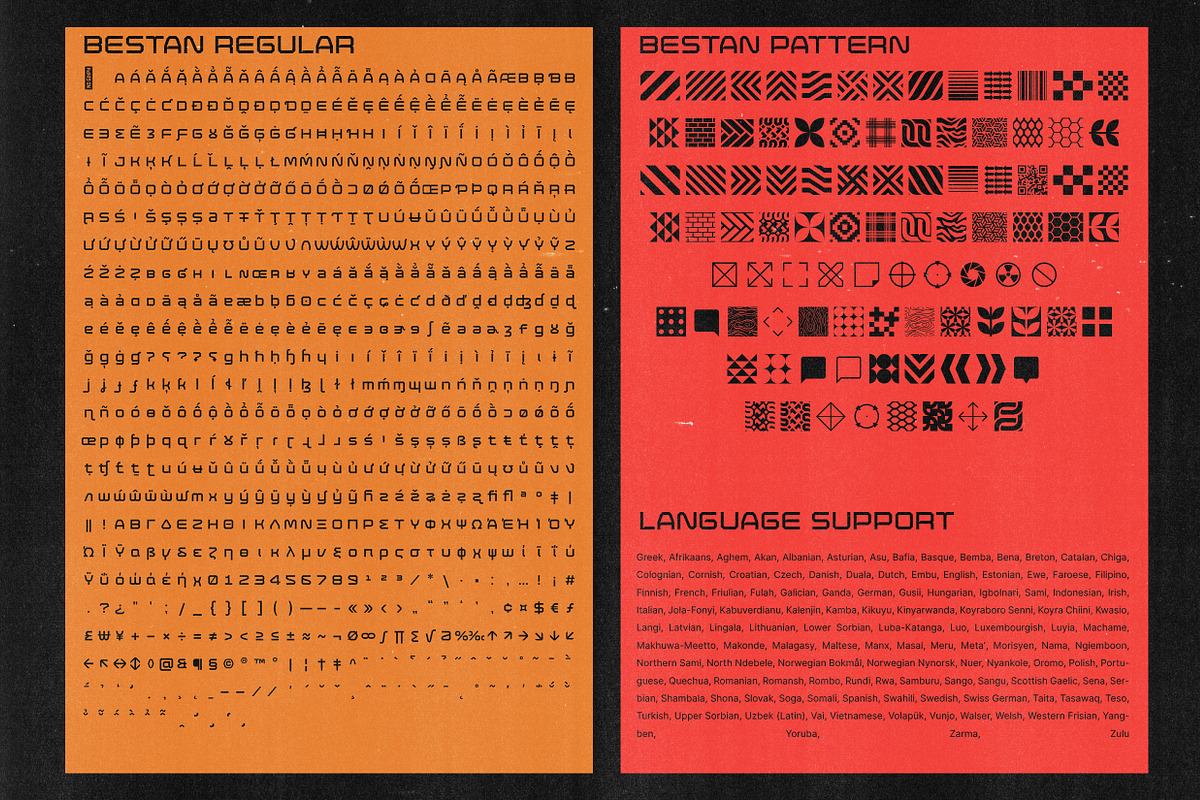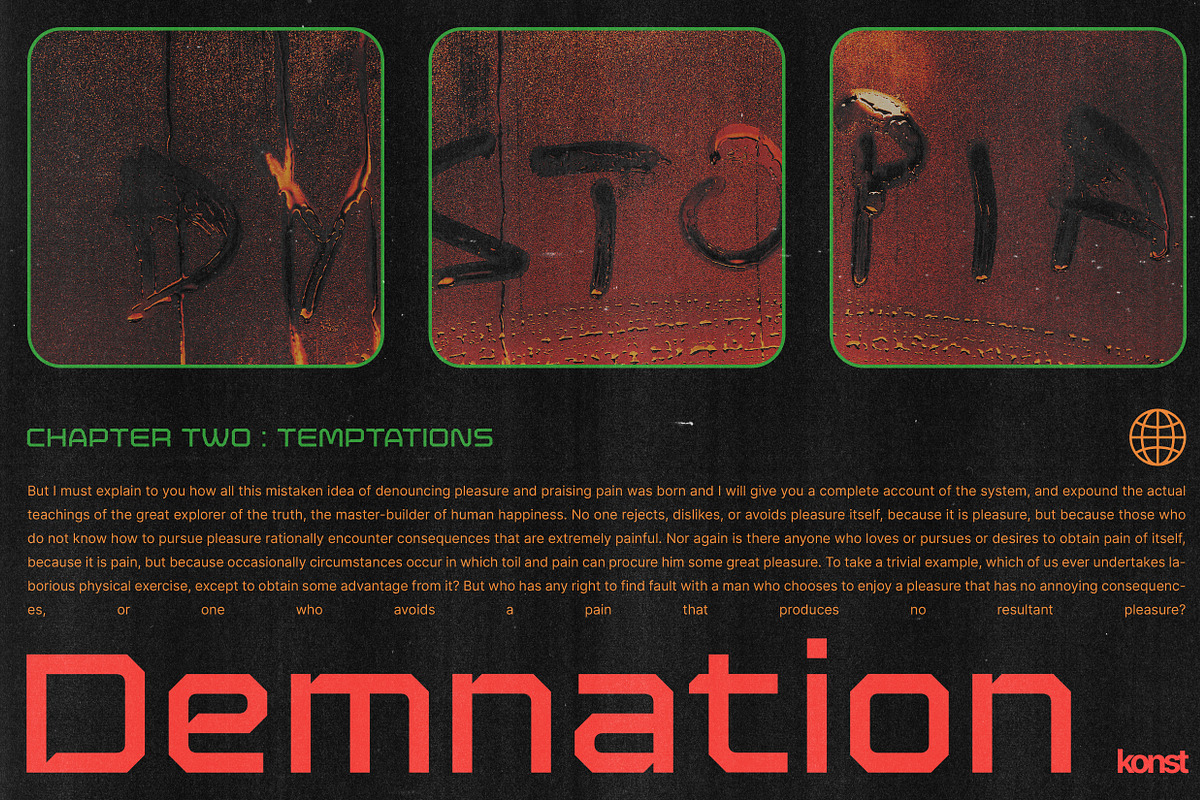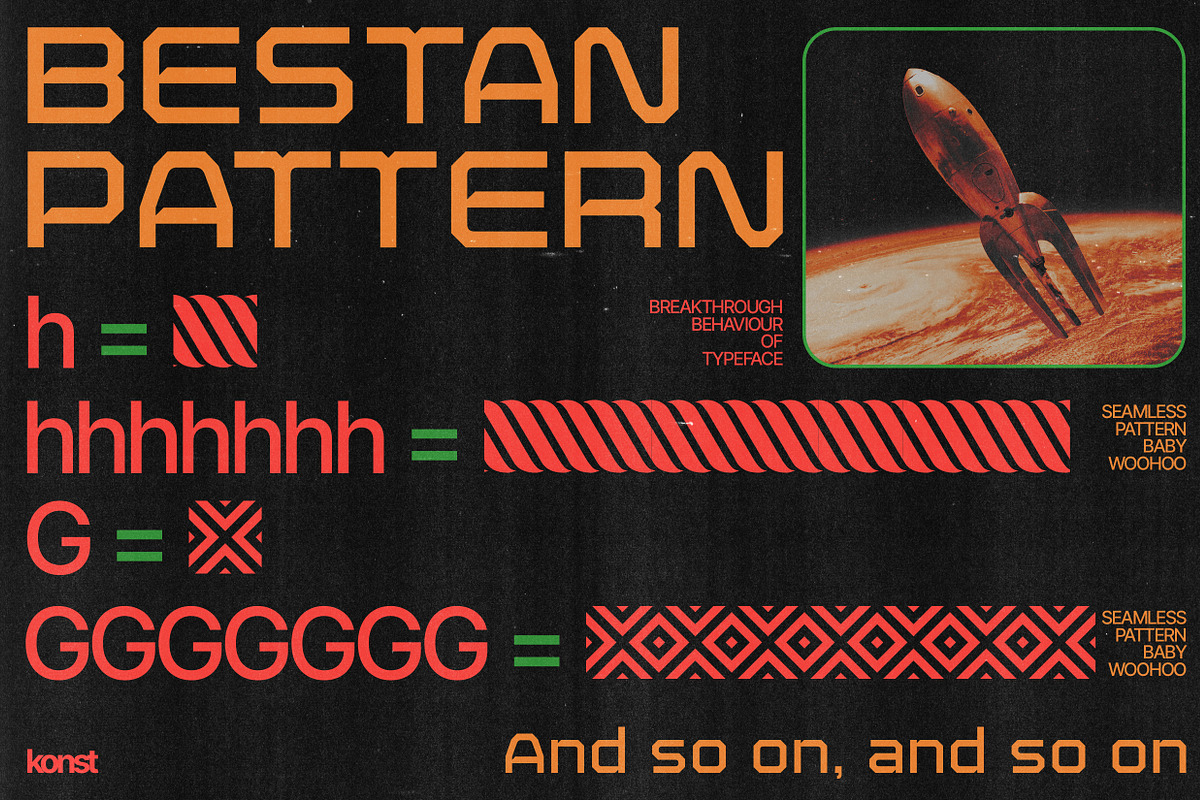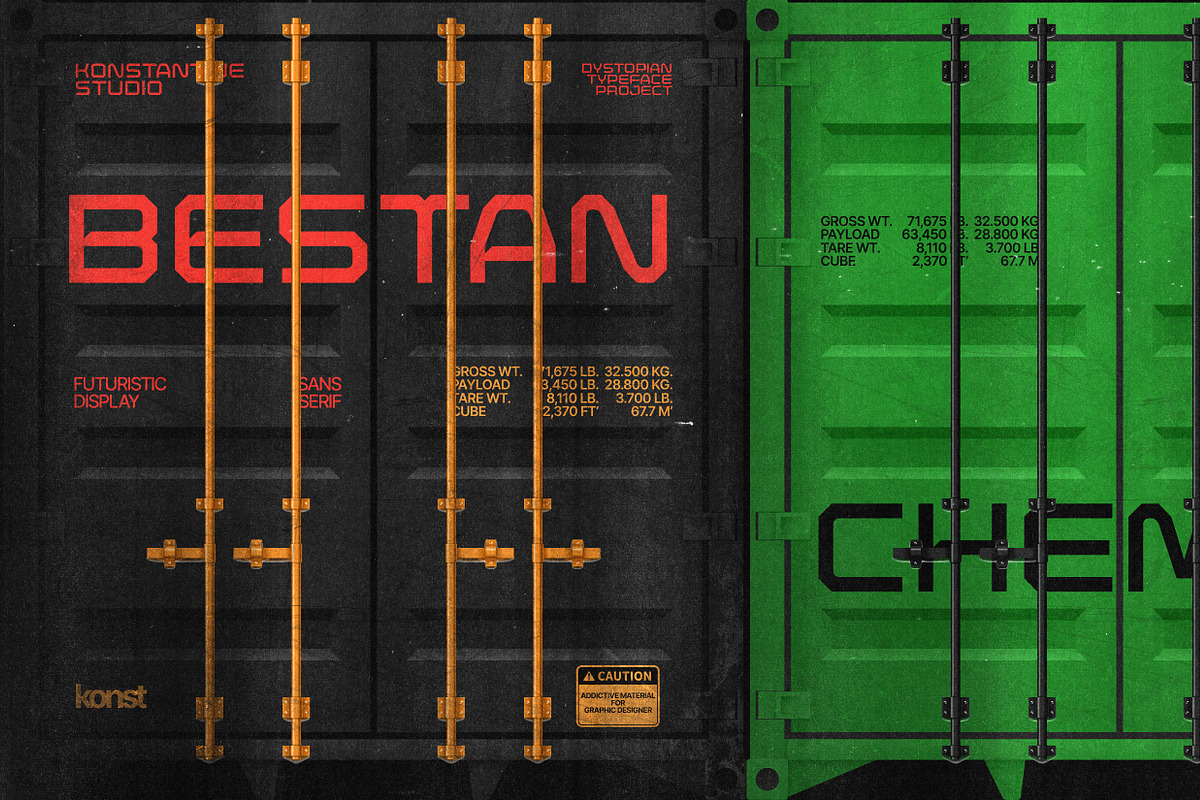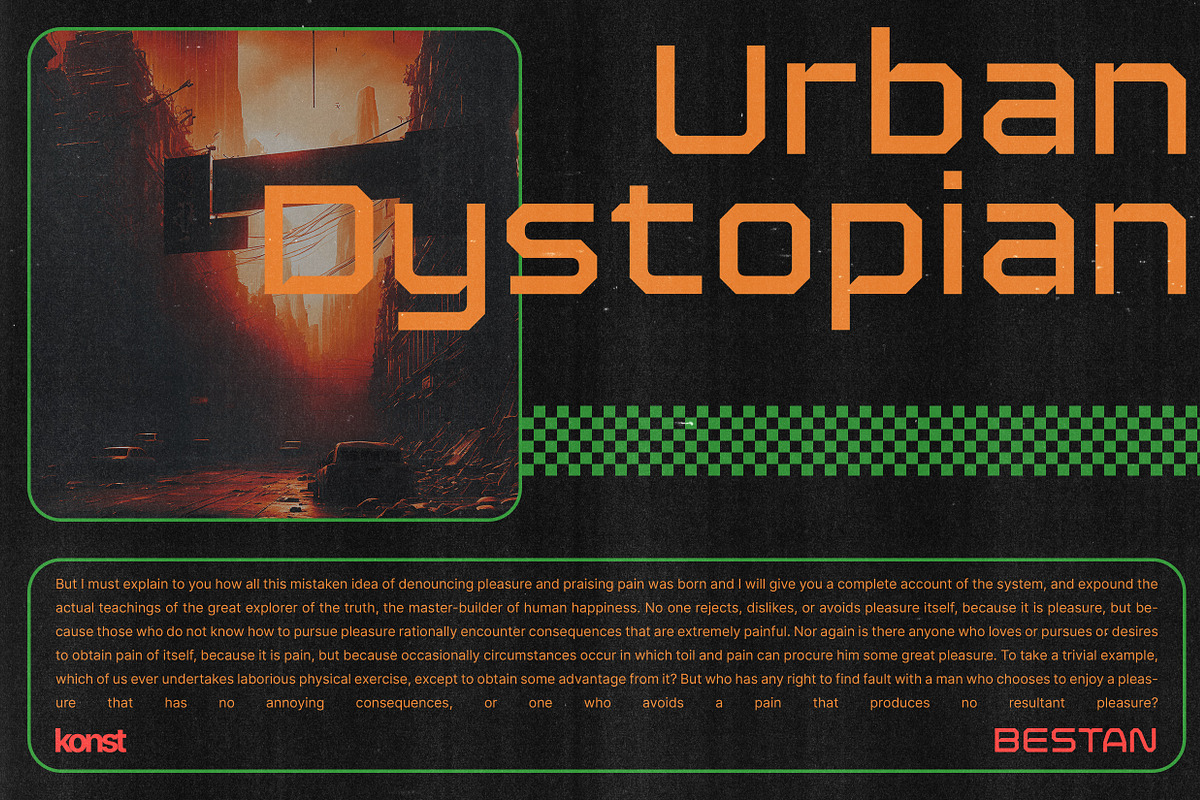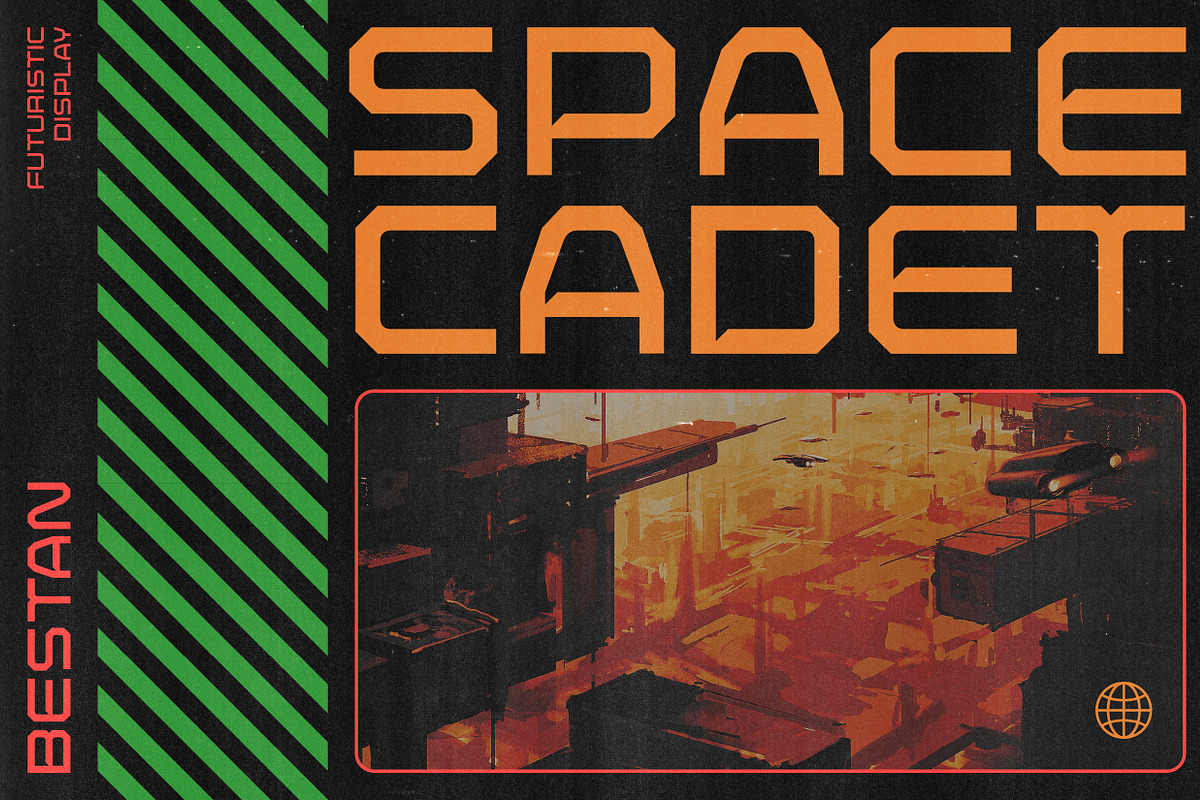
Bestan - Futuristic Display Fonts
Bestan is inspired by the typography of the ship's steel containers and industrial-based business branding. Added a slight touch of futuristic vibes to make Bestan appears as a fresh game-changer, either for corporation purpose and also modern urban vibes to your visual graphic design stuff.
Included a special treat called Bestan Pattern. A dingbats-based font in a seamless pattern form, That you can use easily by just typing out a bunch of the same letters with it.